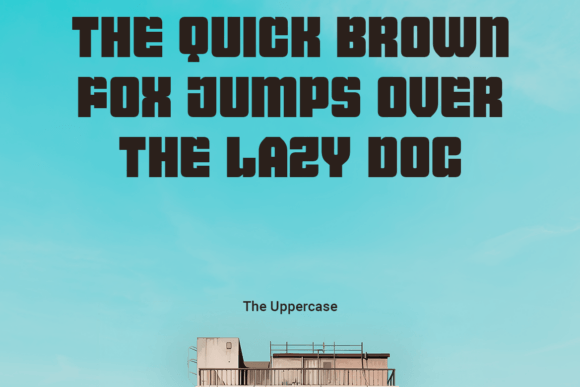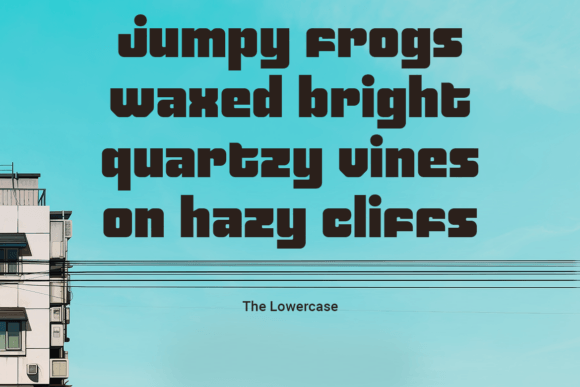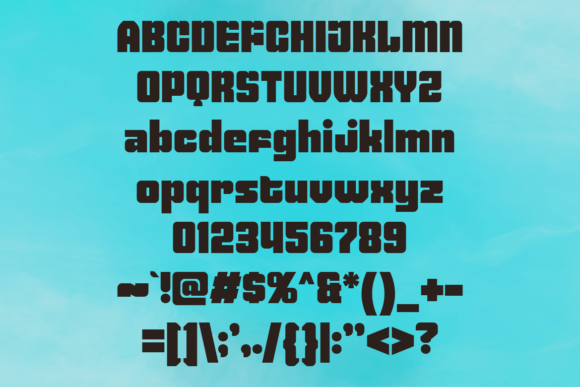
Introduction to Rayesta Font
Do you remember the thrill of discovering a new game or movie that transports you to a futuristic world? The vibrant neon lights, the sleek architecture, and the cutting-edge technology all blend together to create an immersive experience that sparks your imagination. As designers, we’re often tasked with capturing that same essence in our creative projects, and that’s where the Rayesta Font comes in – a strikingly bold typeface that embodies the spirit of a futuristic metropolis.
Whether you’re working on a high-profile campaign or a personal project, the Rayesta Font is an invaluable design resource that can elevate your visuals to new heights. With its commanding presence and retro-futuristic flair, this font is perfect for designers who want to make a bold statement and stand out from the crowd. And the best part? It’s available for free download, allowing you to incorporate its high-quality design into your next creative project with ease.
Imagine being able to add a touch of futuristic sophistication to your design, with a font that features a transparent background and a level of detail that’s simply unmatched. With the Rayesta Font, that’s exactly what you can achieve, making it an essential tool for any designer looking to push the boundaries of their creative work.
Key Features of Rayesta Font
- High-quality, free download font ideal for creative projects and design resources.
- Designed to be highly legible at various resolutions, including high-resolution displays and print materials.
- Comes in a single font weight, making it easy to use in a variety of design contexts.
- Perfect for use in graphic design, digital art, and other creative projects where a clean and modern font is desired.
Honest Review: Rayesta Font
I recently stumbled upon the Rayesta Font while searching for a high quality design resource for a creative project. I was excited to give it a try and see if it would meet my expectations.
- Transparency: The Rayesta Font comes with a transparent background option, making it perfect for designers who need to create custom backgrounds or overlays.
- High Quality: The font’s high quality design and crisp typography make it a great addition to any project.
- Limited Styles: The Rayesta Font only comes in a few styles, which may limit its versatility for designers who need a wide range of options.
- No Bold or Italic: The font does not have bold or italic versions, which may be a drawback for designers who need to emphasize certain text.
Overall, I was impressed with the Rayesta Font’s quality and versatility. While it has some limitations, it’s a great resource for designers who need a high quality font for a creative project. With its transparent background option and free download, it’s definitely worth checking out.
The Rayesta Font is a high-quality, free design resource perfect for creative projects. It features a transparent background, making it ideal for use on any background.
Common use cases for the Rayesta Font include:
– Creating eye-catching headings and titles
– Designing social media graphics and posts
– Building engaging presentations and reports
Is the Rayesta Font suitable for high-resolution designs?
Yes, the Rayesta Font is designed to be high-quality and suitable for use in high-resolution designs, such as those used in print materials and digital displays. It features a transparent background, making it easy to layer with other design elements and achieve a clean, modern look.